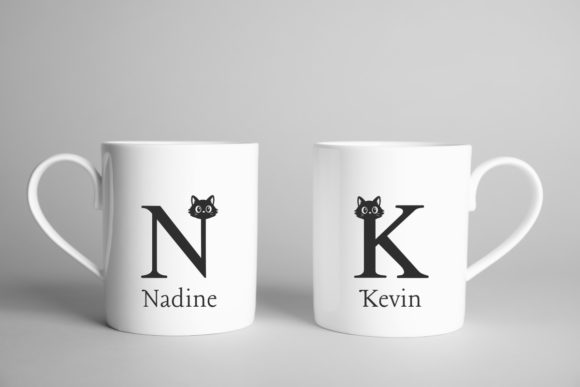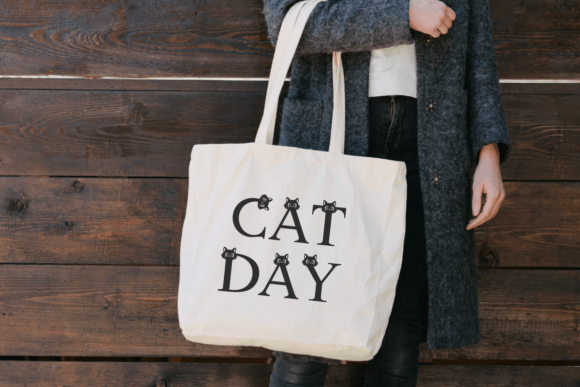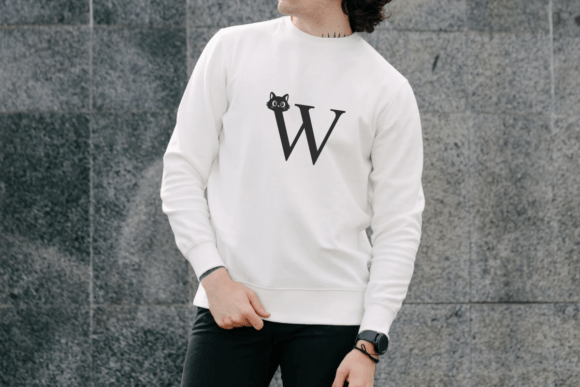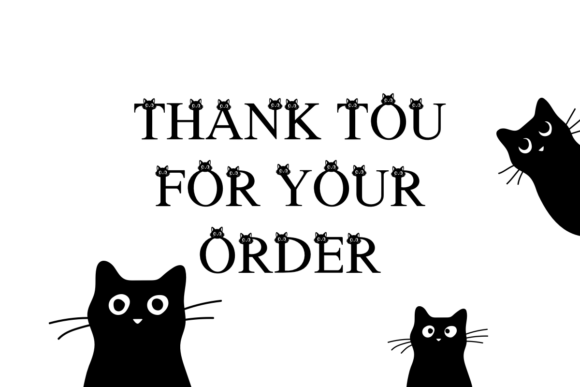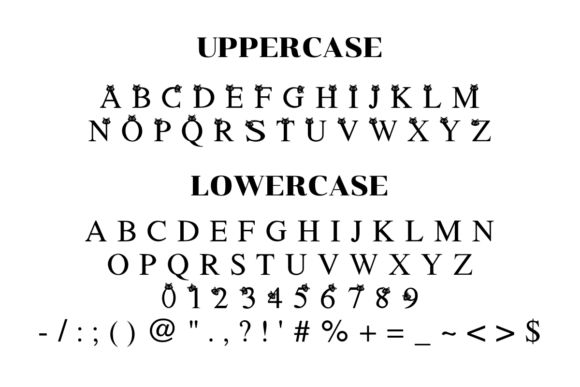
Introducing Catgrid Font: The Purrfect Addition to Your Design Arsenal
Are you a designer, crafter, or simply a creative individual looking for a unique and playful font to elevate your projects? Look no further than Catgrid Font, a decorative font that’s sure to capture the hearts of cat lovers and design enthusiasts alike. In this article, we’ll dive into the world of Catgrid Font, exploring its features, uses, and benefits, as well as provide tips and inspiration for incorporating it into your designs.
What is Catgrid Font?
Catgrid Font is a decorative font designed to add a touch of whimsy and personality to your projects. With its distinctive, hand-drawn aesthetic, this font is perfect for creating eye-catching designs that stand out from the crowd. Whether you’re looking to create a custom greeting card, a social media post, or a banner, Catgrid Font is the perfect choice.
Features and Benefits of Catgrid Font
So, what makes Catgrid Font so special? Here are just a few of its key features and benefits:
- Unique and playful design: Catgrid Font boasts a one-of-a-kind design that’s sure to add a touch of personality to your projects.
- Versatile: This font is perfect for a wide range of projects, from notes and diaries to greeting cards, banners, and more.
- High-quality: This font is designed to produce high-quality text that’s clear and easy to read.
Uses for Catgrid Font
So, what can you use Catgrid Font for? The possibilities are endless! Here are a few ideas to get you started:
- Notes and journals: Add a touch of personality to your notes and journals with Catgrid Font.
- Greeting cards: Create custom greeting cards for special occasions, such as birthdays, holidays, and more.
- Banners and signs: Use Catgrid Font to create eye-catching banners and signs for parties, events, and more.
- Social media posts: Add a touch of whimsy to your social media posts with Catgrid Font.
- Mugs, cards, and shirts: Create custom products, such as mugs, cards, and shirts, with Catgrid Font.
- Stationery: Use Catgrid Font to create custom stationery, including letterheads, envelopes, and more.
Tips for Using Catgrid Font
Here are a few tips for getting the most out of Catgrid Font:
- Experiment with different sizes and colors: Don’t be afraid to try out different sizes and colors with Catgrid Font to create a unique look.
- Pair with other fonts: Combine Catgrid Font with other fonts to create a visually interesting design.
- Use it sparingly: Use Catgrid Font sparingly to add emphasis and create visual interest in your designs.
Still looking for inspiration? Here are a few ideas to get you started:
- Create a custom cat-themed party: Use Catgrid Font to create custom invitations, banners, and decorations for a cat-themed party.
- Design a cat lover’s gift: Create a custom gift, such as a mug or shirt, with Catgrid Font for the cat lover in your life.
- Make a cat-themed journal: Use Catgrid Font to create a custom journal or diary with a cat theme.